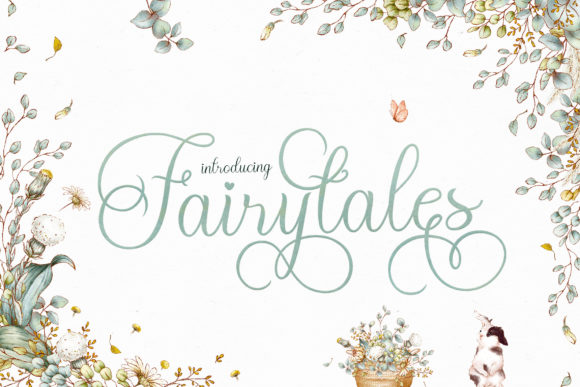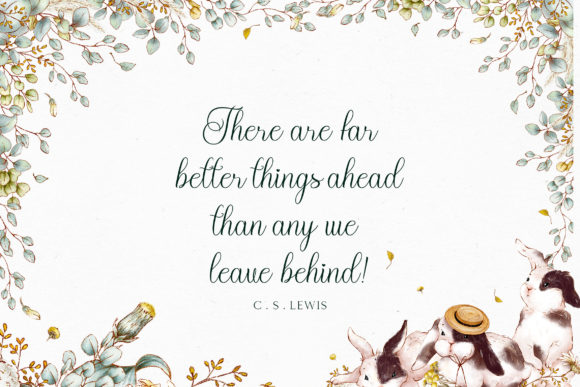
About Fairytales Script Font
Fairytales Script is an elegant script font with a contemporary atmosphere and impeccable form. Not too thin and not too thick, balanced and varied, this font was designed to enhance the beauty of your projects.